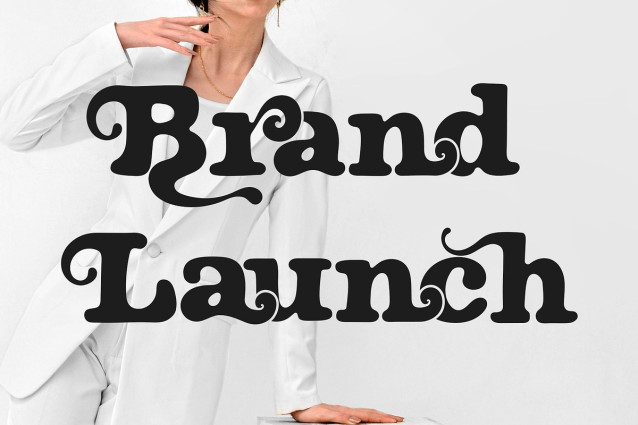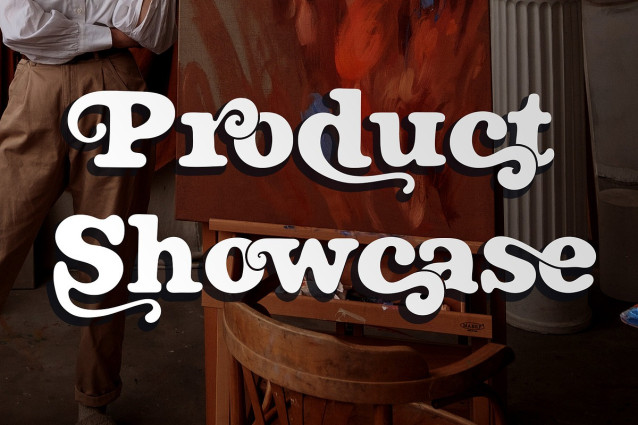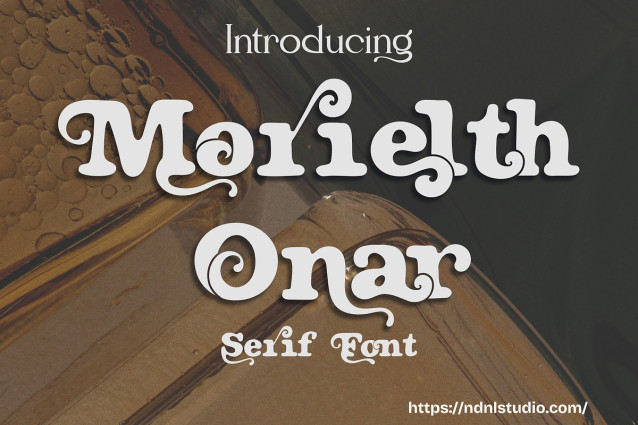
Morielth Onar Font is a bold and artistic serif font that blends vintage charm with whimsical swirls. Each letter is designed with playful curves and elegant details, making it perfect for retro posters, classic branding, book covers, and creative typography projects. With its decorative touch and expressive style, Morielth Onar brings a sense of fantasy and uniqueness to every design.